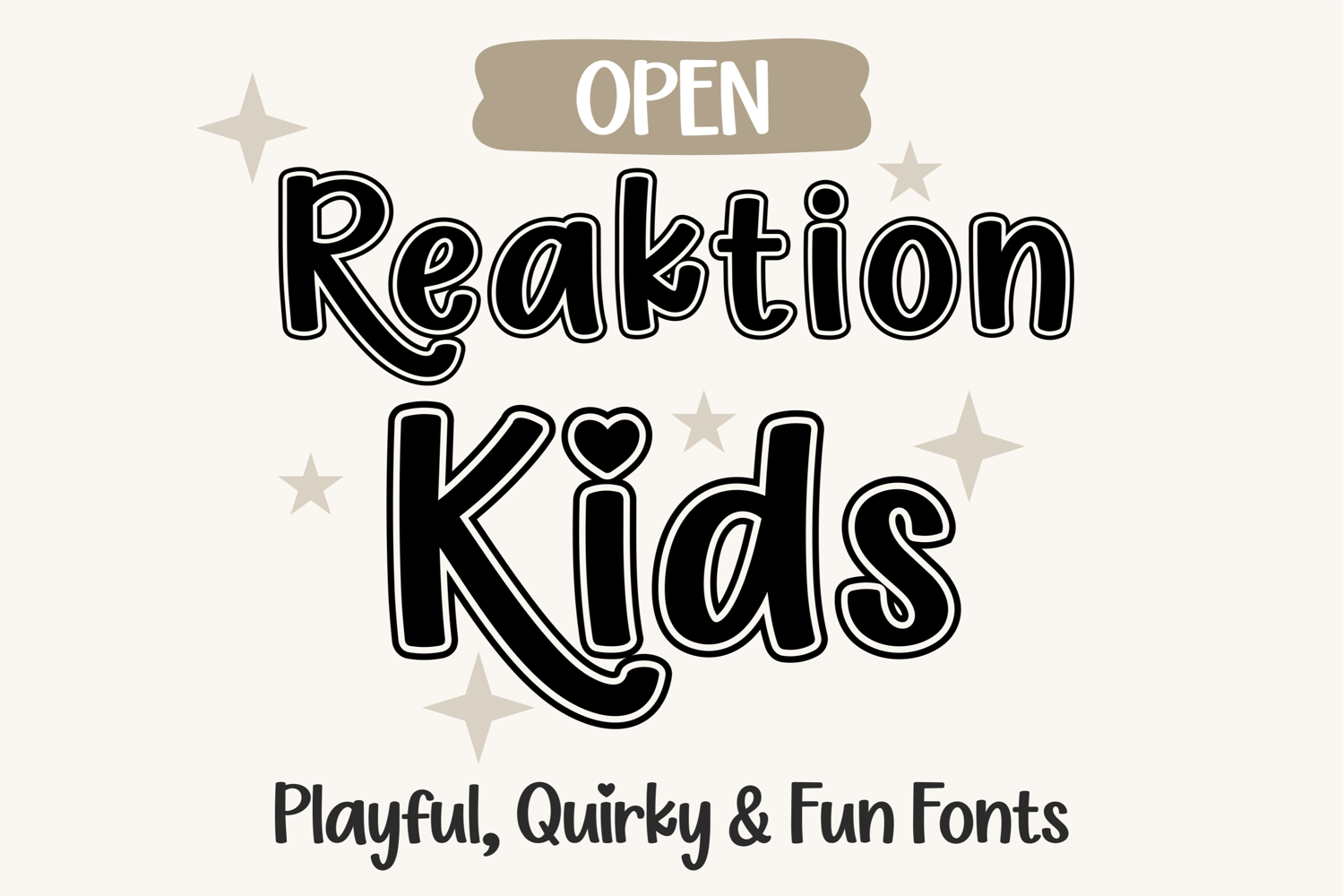
Reaktion Kids Open Playful Kids Font
Reaktion Kids Open is a playful layered-style handwritten font created for fun, cheerful kids designs. With bold outer shapes and open inner spaces, this font delivers a modern, eye-catching look while keeping a soft and friendly personality. It is perfect for layered text, cut projects, and designs that need extra depth and contrast.
The open style works beautifully for t-shirts, stickers, signs, posters, and kids crafts where layering or shadow effects are important. Reaktion Kids Open pairs perfectly with filled or line fonts, making it easy to create multi-layer compositions that feel playful and dynamic. The heart-dot alternates for the letters “i” and “j” add a cute and whimsical detail that enhances names, quotes, and fun messages.
This font is ideal for children’s decor, classroom projects, party graphics, nursery art, printable designs, and creative lettering. Its rounded shapes and balanced spacing make it easy to read while still feeling imaginative and joyful.